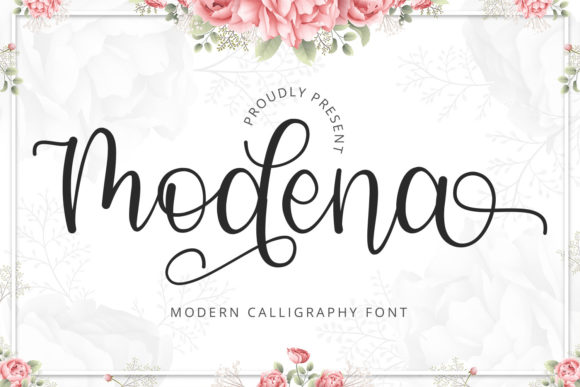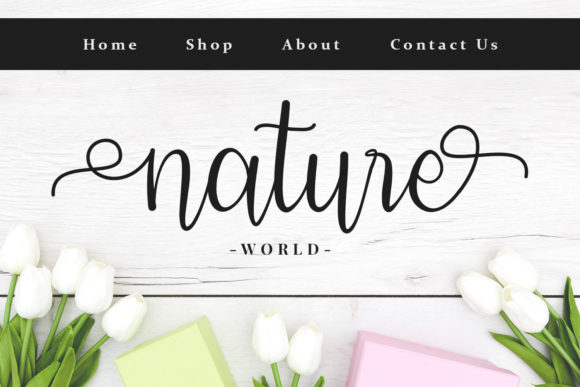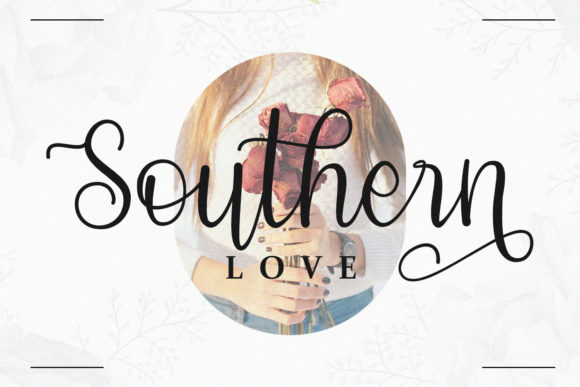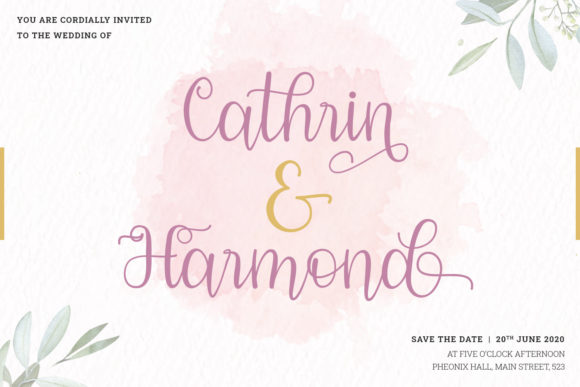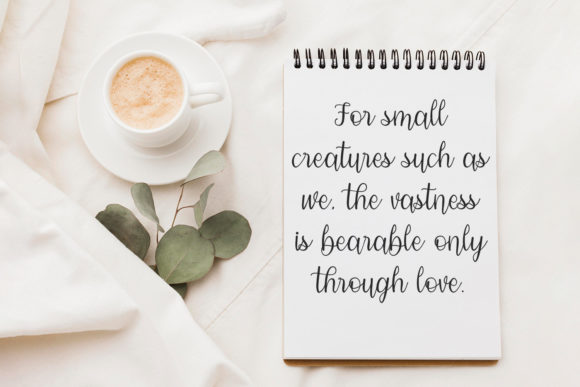
About Modena Font
Modena is an elegant script font. Not too thin and not too thick, balanced and varied, this font was designed to enhance the beauty of your projects. Modena is PUA encoded which means you can access all of the glyphs and swashes with ease!